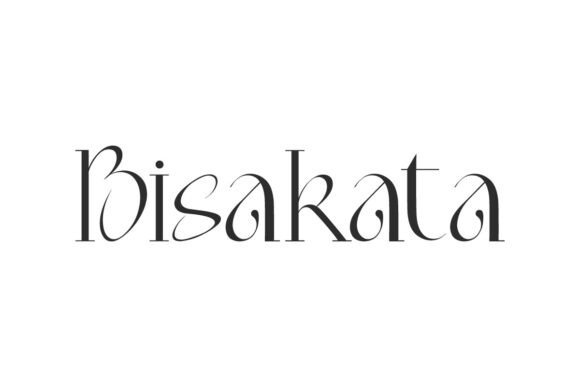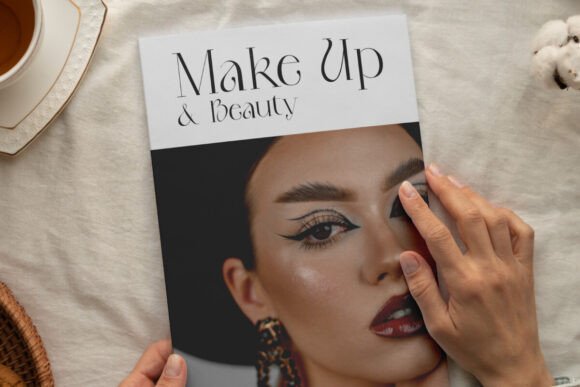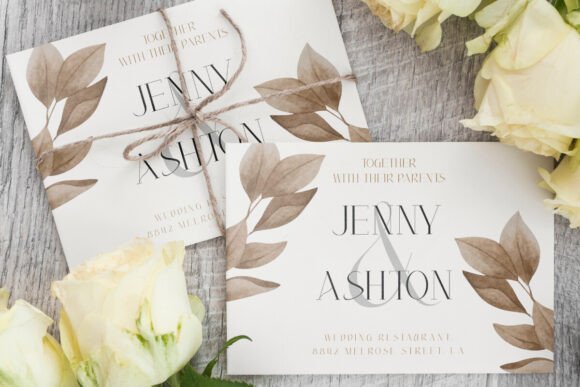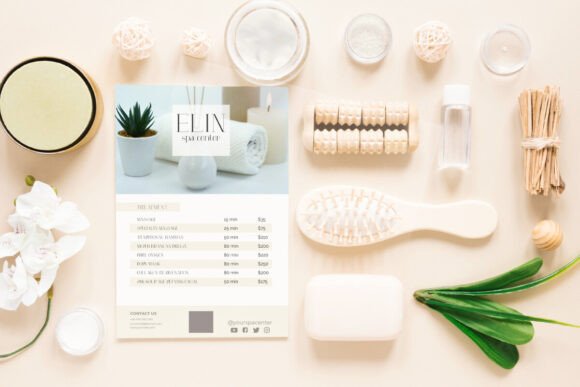
Bisakata Font: Elegant Serif Typography for Modern Branding & Logo Design
About the Bisakata Font
Welcome to the world of Bisakata Font, a typeface that will inspire your next great project. Bisakata Font is a sophisticated, beautiful display serif font with a touch of seamless elegance. This typeface with a calm atmosphere will be useful in any design such as, apps, booklets, brand design, cover, flyer, headline, invitation, label, modern logo, packaging design, poster, postcards, quotes, screen printing, signage, stationery, sticker, typographic design, website, and many more.
Bisakata Font Usage Examples
Bisakata Font Example